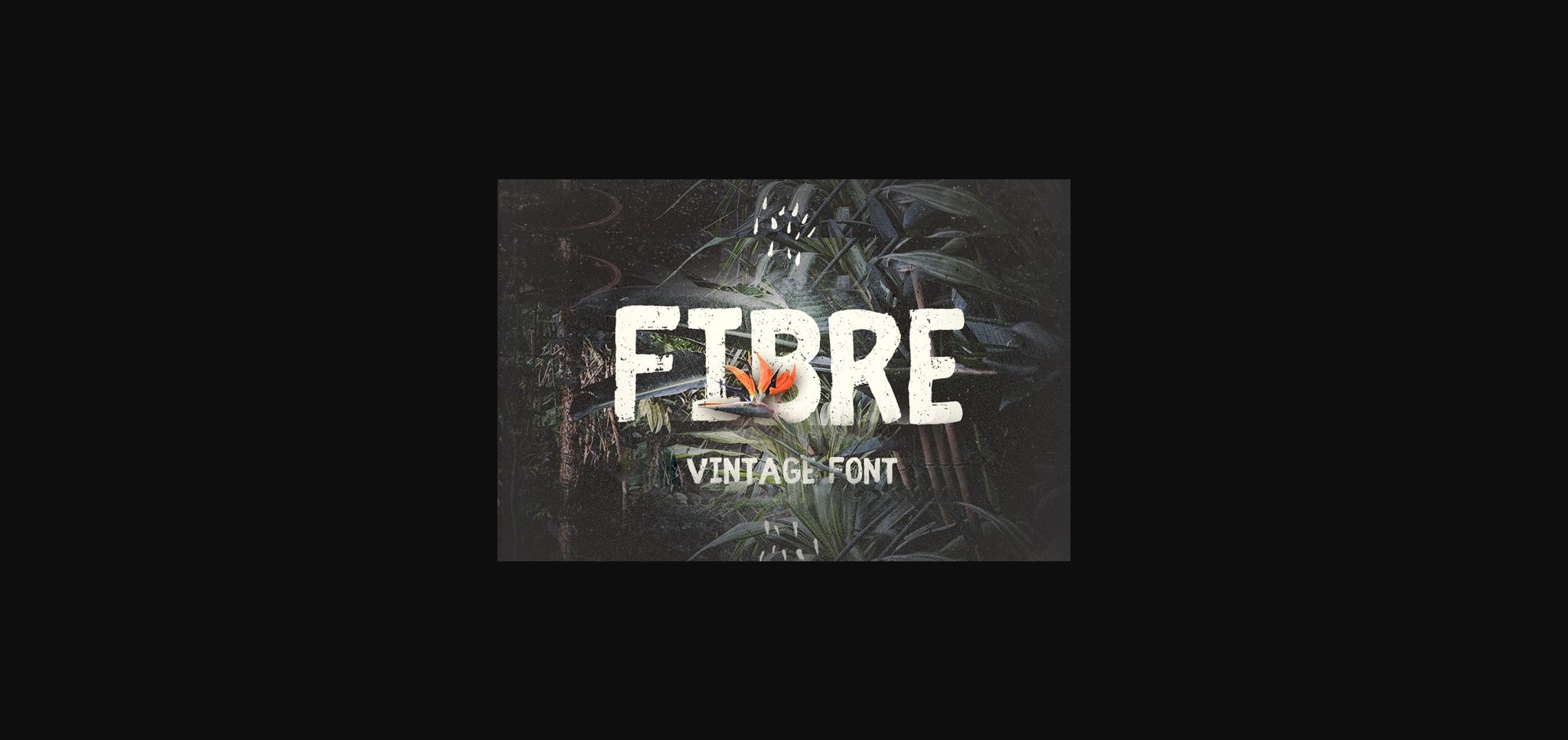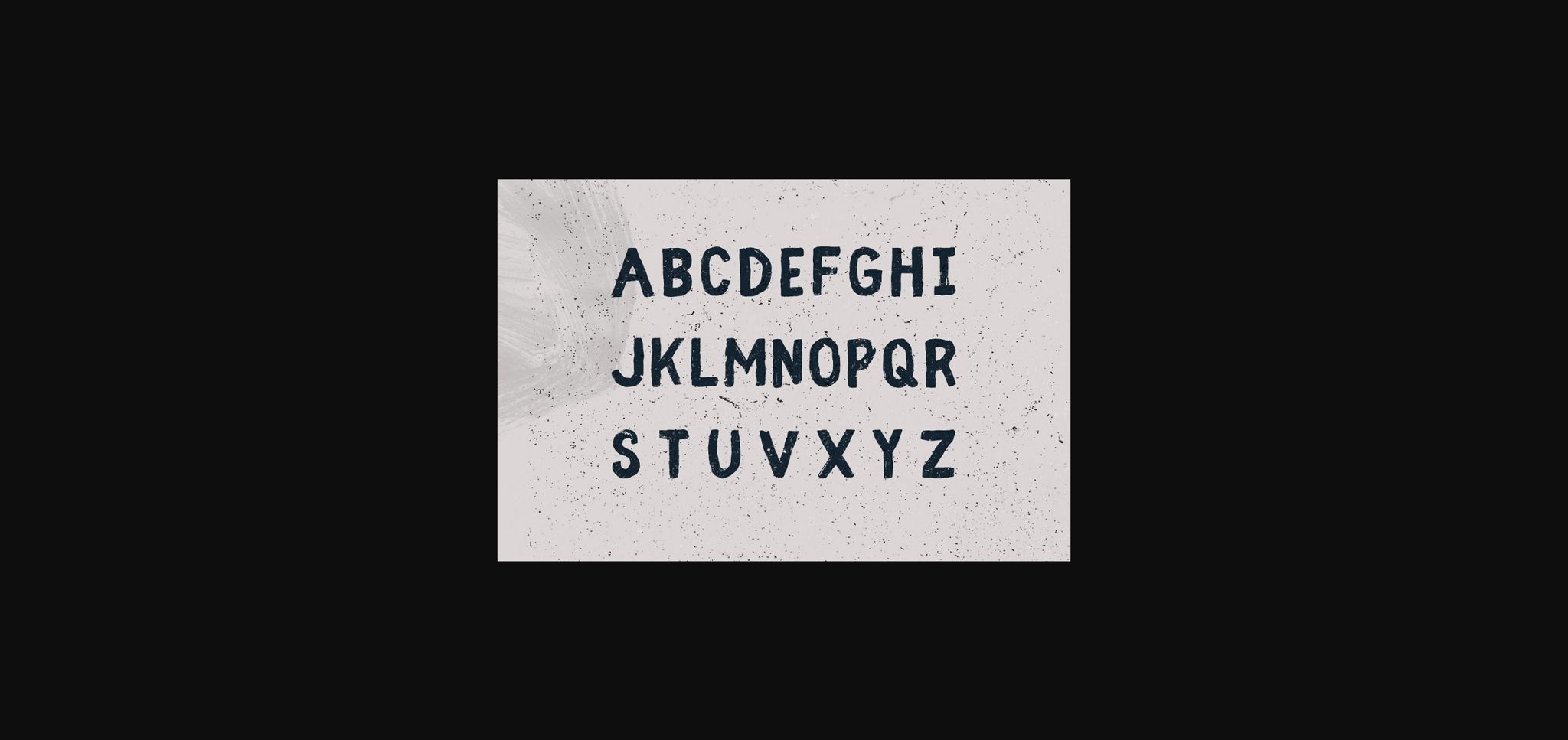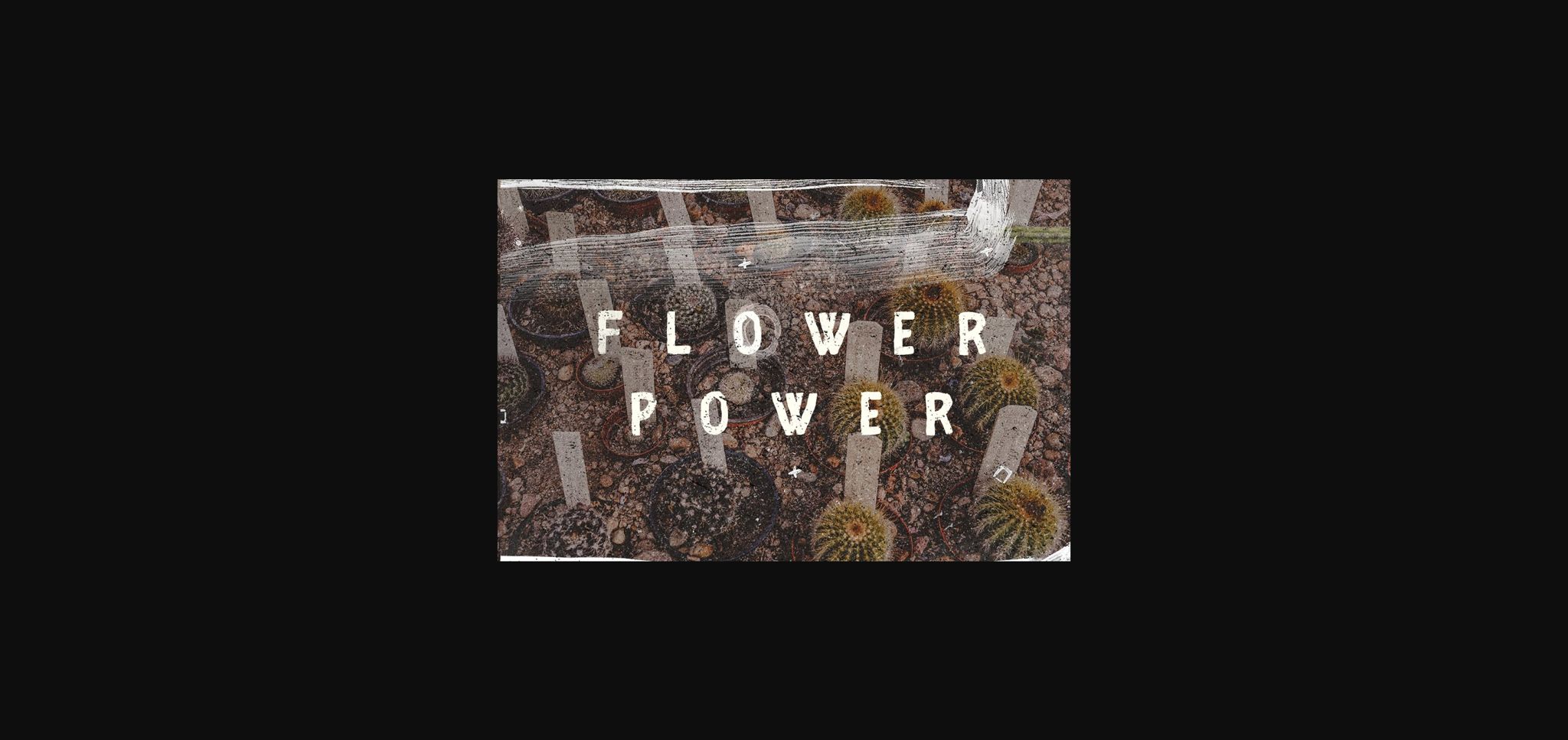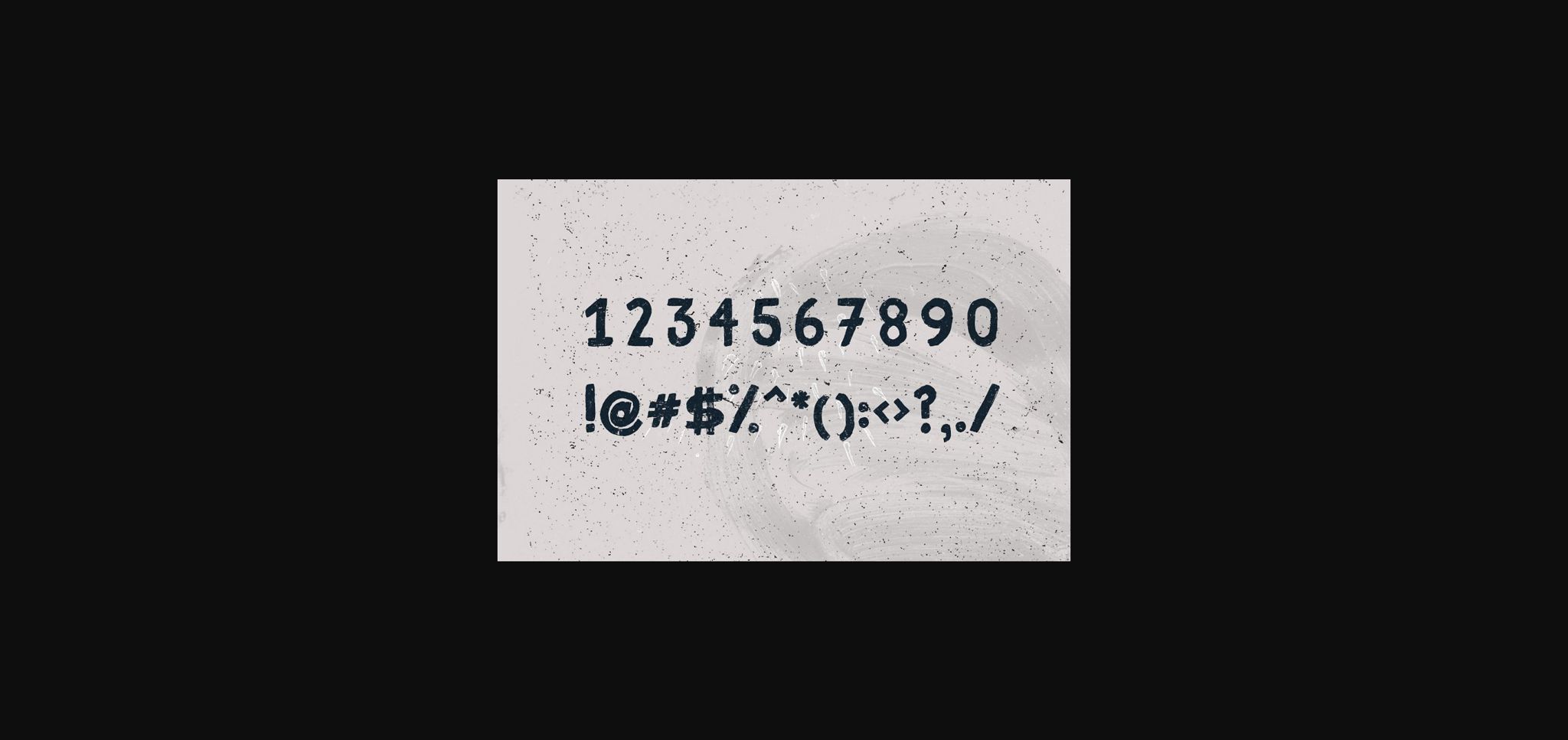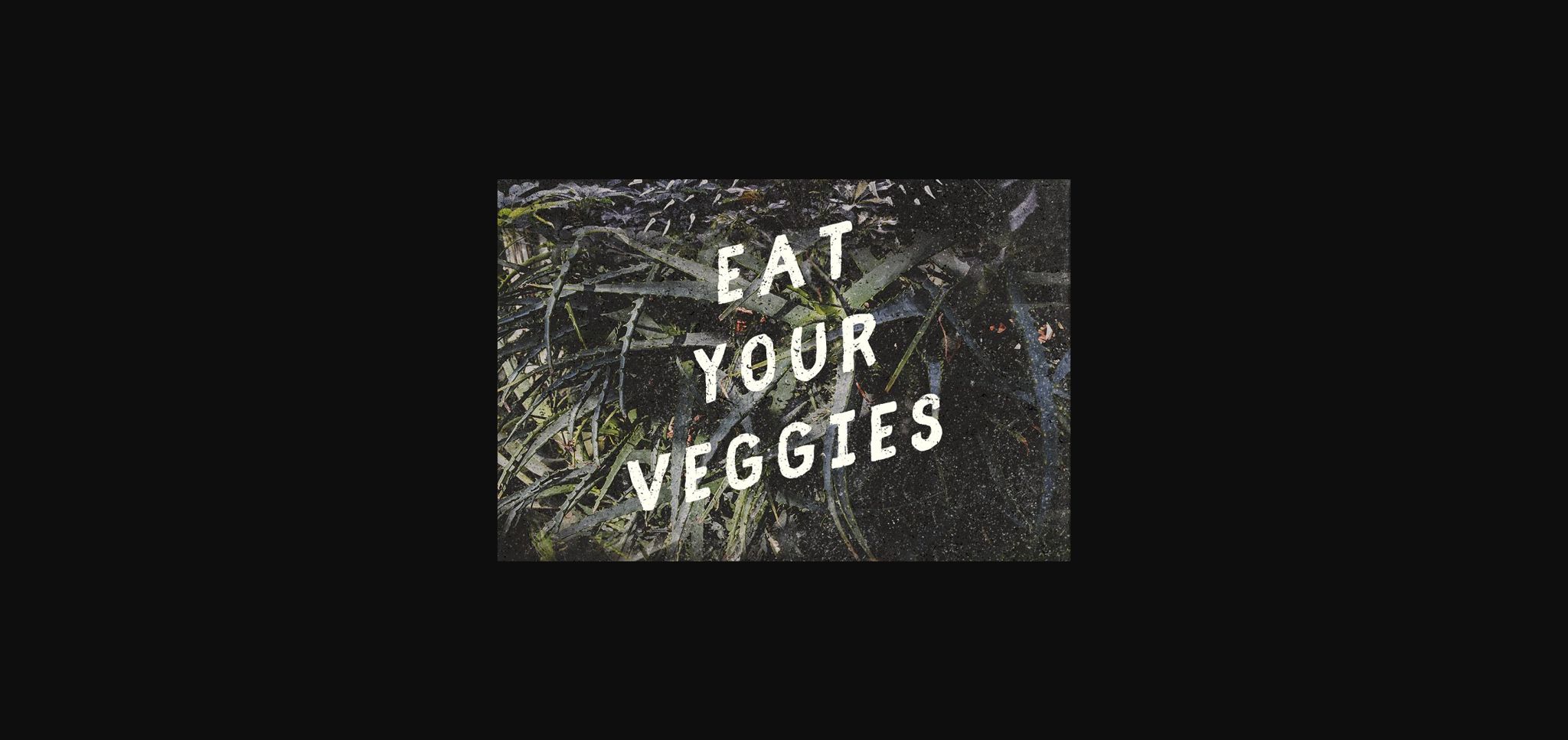
About Fibre Font
Fibre feels playfully nostalgic and delivers an incredible vintage aesthetic. Use this sans serif font to add that special retro touch to any design idea you can think of!